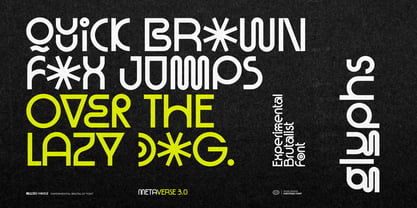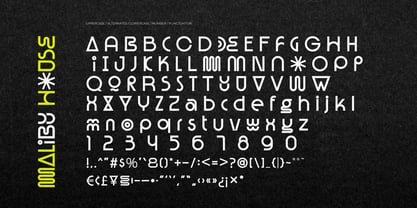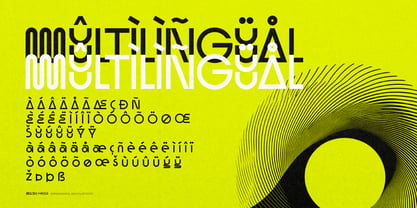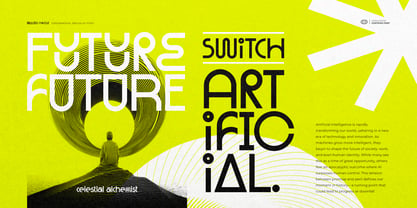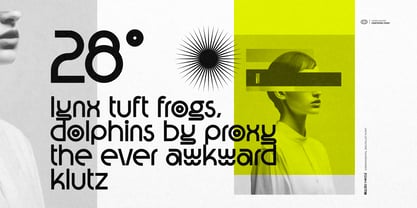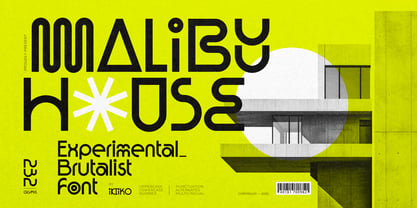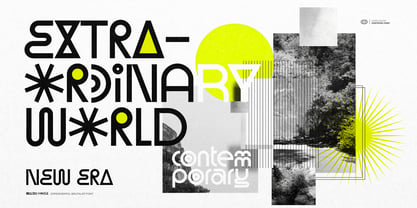
Malibu House
The Malibu House Font Family was designed by Andhika Pradana and published by IKIIKOWRK. Malibu House contains 1 styles. More about this family
Proudly present Malibu House - Experimental Brutalist Font, created by ikiiko.
Step into the future of design with Malibu House, an experimental brutalist font that fuses raw, architectural energy with geometric precision. Inspired by the bold aesthetics of brutalism and the sleek lines of futuristic typography, this typeface makes a striking statement in any modern creative project.
Perfect for designers who crave a balance of minimalist structure, contemporary style, and unapologetic boldness, Malibu House stands out with its sharp edges, modular forms, and art-forward visual language. Whether you're crafting a disruptive brand, avant-garde poster, digital art piece, or high-impact editorial layout, this stylish brutalist font commands attention. With influences from industrial design, modern architecture, and neo-futurism, Malibu House is more than just a typeface—it's a design attitude.
This font is perfect for a futurism project, Y2K event, poster & flyers, branding, headline, cover, magazine layout, website layout, quotes, or simply as a stylish text overlay to any background image.
* Uppercase & Lowercase
* Numbers & Punctuation
* Alternates
* Multilingual Support